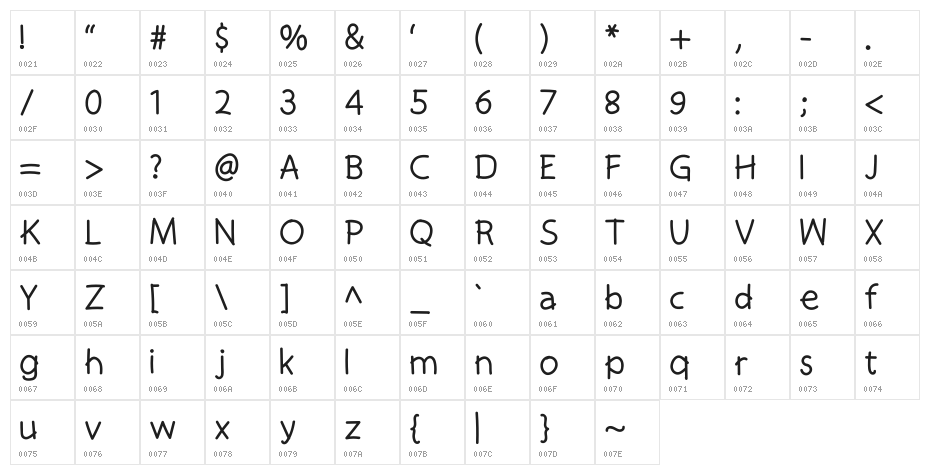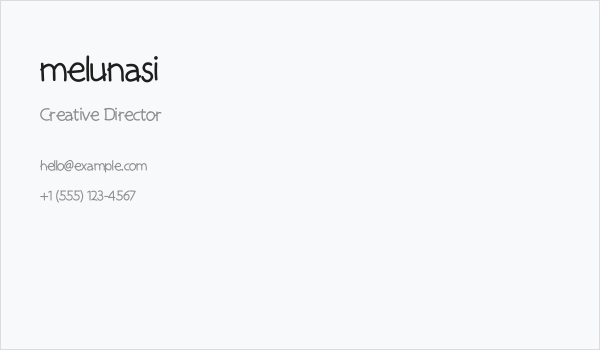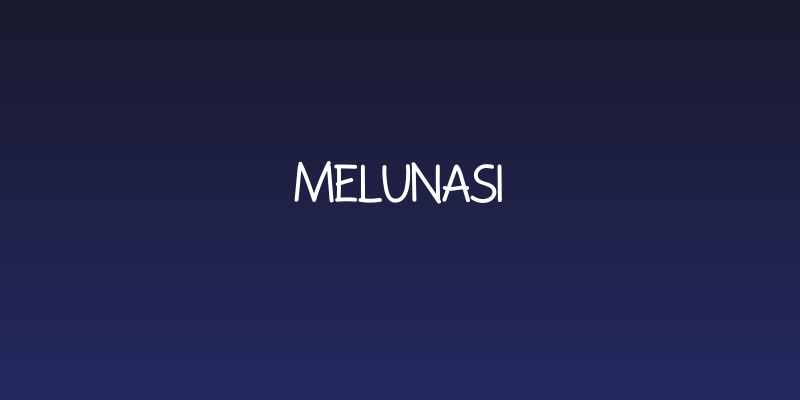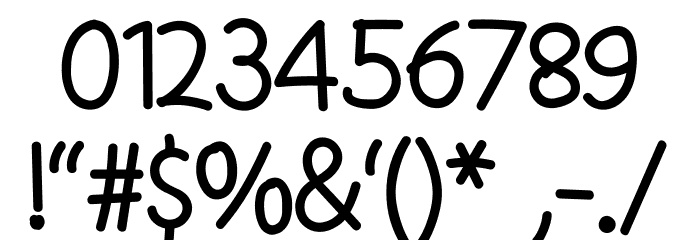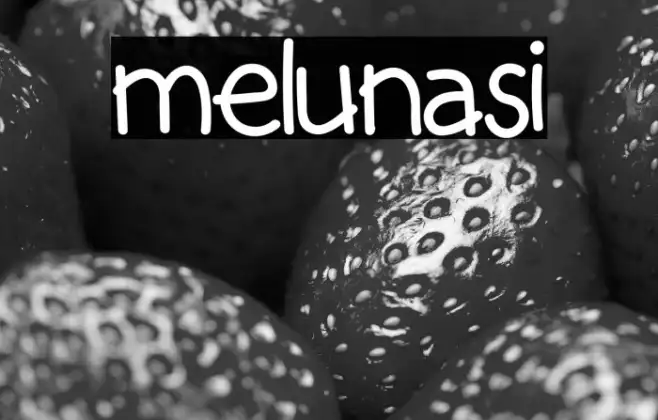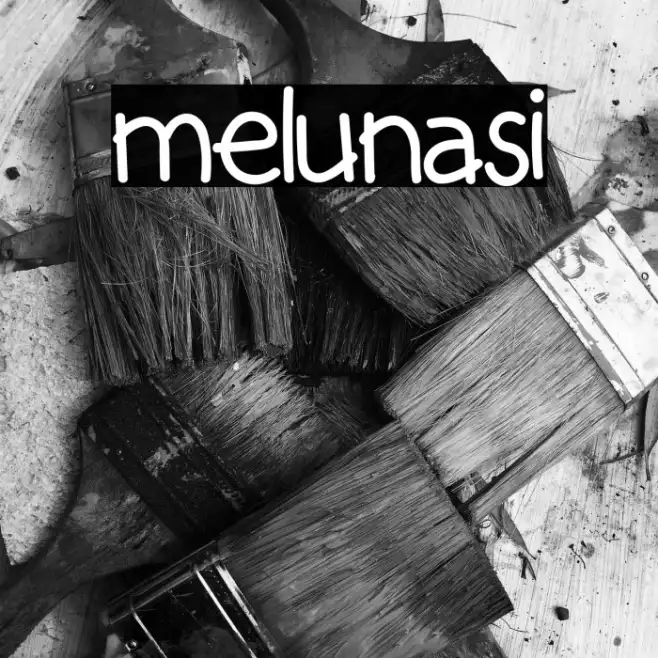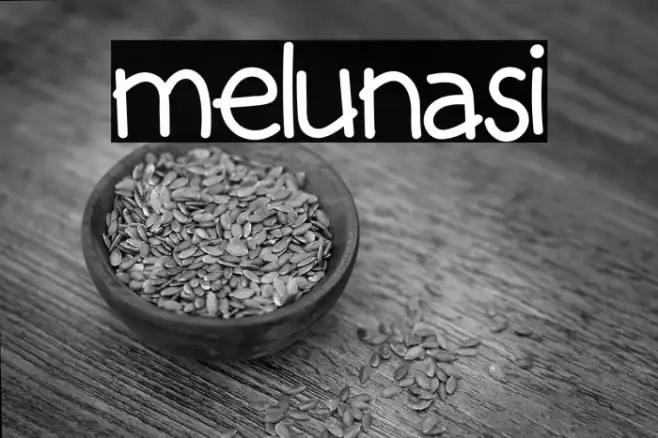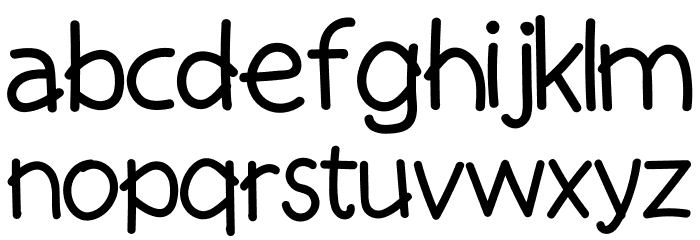
melunasi Font
melunasi Description
This playful and rounded font exudes a casual and friendly vibe, characterized by its smooth curves and consistent stroke width. The letters are slightly irregular, giving it a hand-drawn appearance that adds a personal touch. The uppercase and lowercase letters maintain a uniform style, with rounded edges and a slightly whimsical flair. Numbers and special characters follow the same design, ensuring a cohesive look across all text elements. This font is versatile, suitable for projects that require a warm and approachable feel.
| Proposed Projects | Ideal for children's books, greeting cards, playful branding, and casual invitations. |